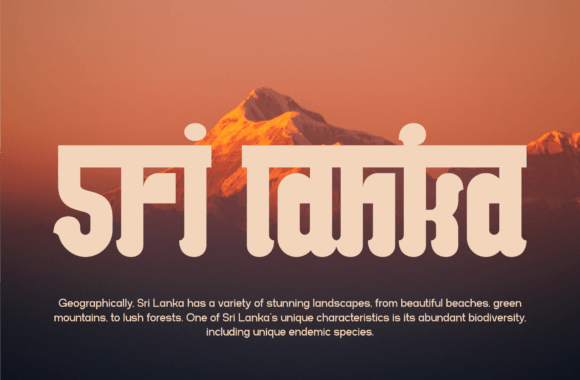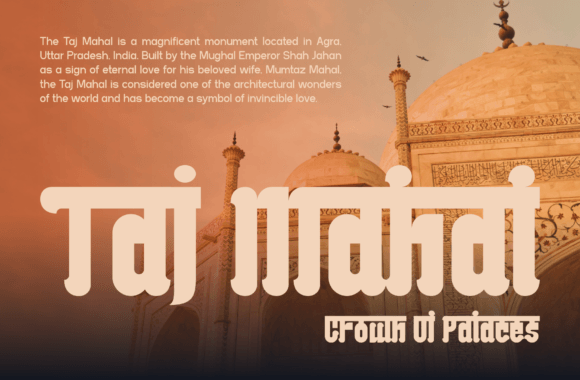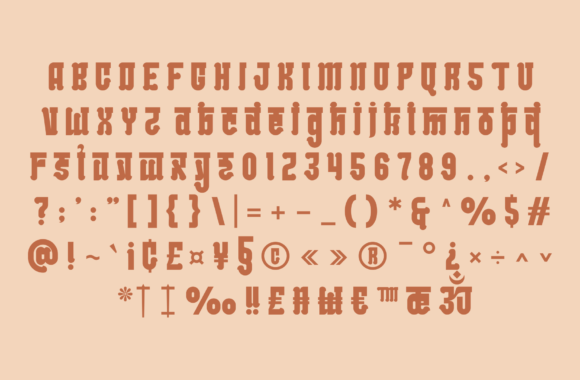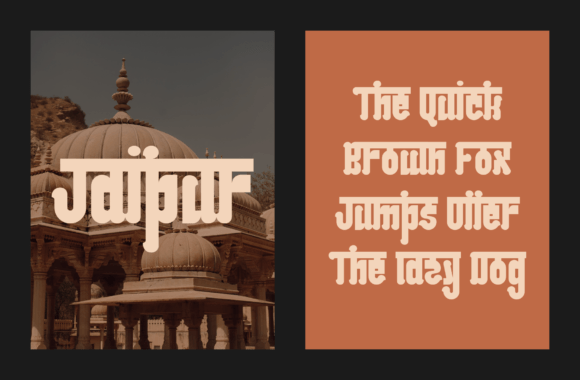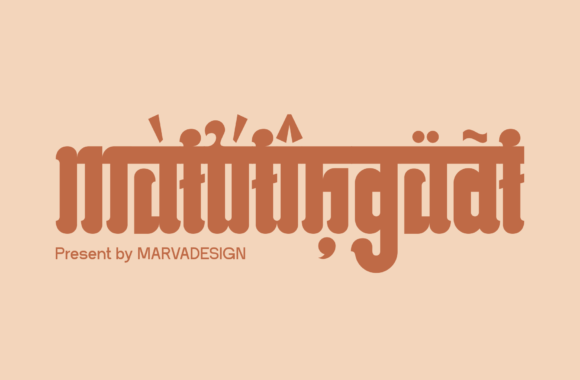
Introduction to Mahatie Font
**Mahatie** This font uses English in a bold bold style usually featuring a blend of classic Indian script aesthetics with modern typographic elements.
The font features ornate details inspired by traditional Indian calligraphy, while combining the boldness and conciseness characteristics of the condensed style The strokes in such fonts are usually bold and defined, thereby improving readability even at smaller sizes.
Key Features of Mahatie Font
Why Choose Mahatie Font?
Mahatie Font offers exceptional quality and versatility, making it a valuable addition to your design toolkit. Whether you’re creating for personal projects or commercial use, Mahatie Font delivers professional results.